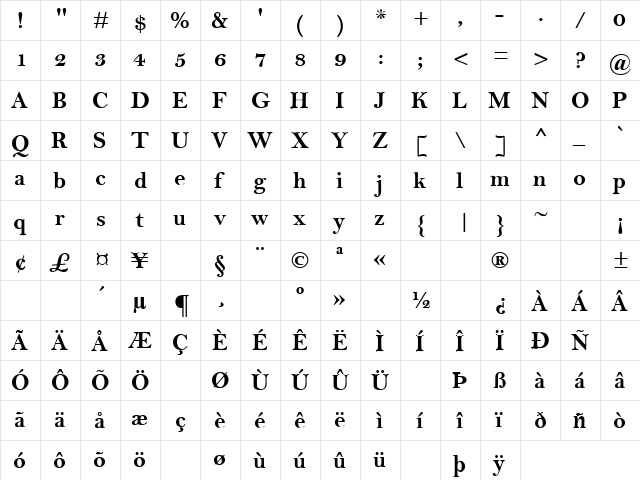
Melissa 4 Regular Font Preview
Melissa 4 Regular
Melissa 4 Regular Font Details
Design Context for Melissa 4 Typeface
Melissa 4 offers clean, dependable letterforms without strong stylistic allegiance, making it a practical choice for designers who need flexibility.